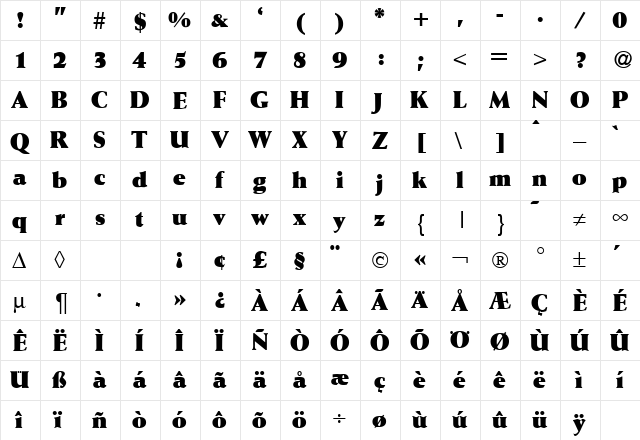
WaizeUltrabold Regular
Design Context for WaizeUltrabold Typeface
WaizeUltrabold takes a measured approach to typography — its balanced proportions and neutral character make it a reliable workhorse for both digital and print work. Its bold stroke weight gives it real presence on the page.